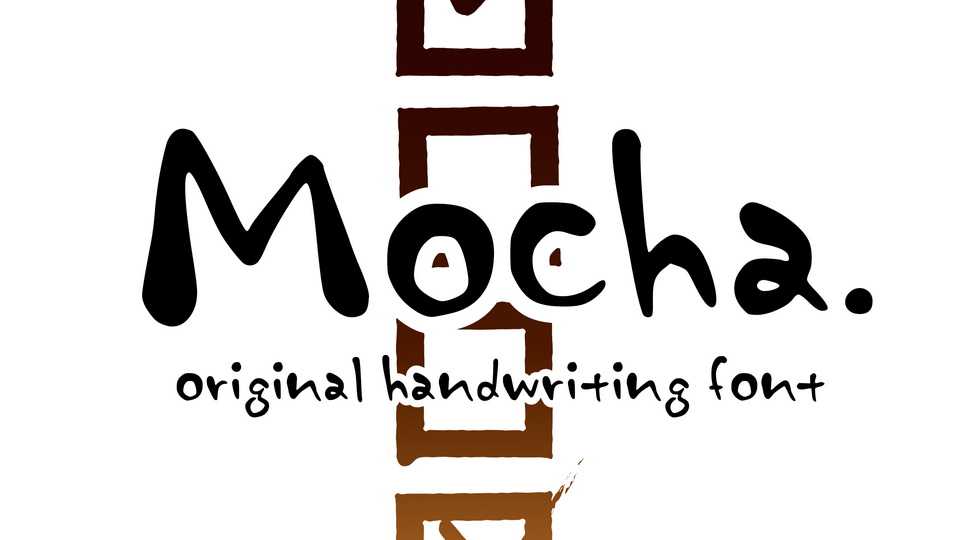
Download Mocha font, an original handwritten typeface with a smooth, natural flow. Designed to bring good vibes, Mocha font is perfect for notes, quotes, cards, crafts and any project that needs a truly authentic look.